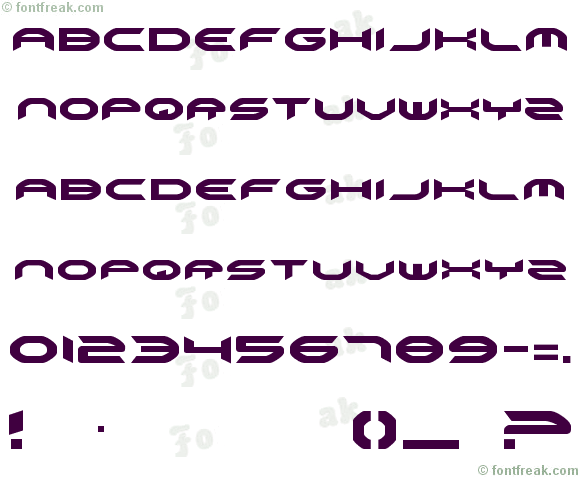
Omni Girl
About Omni Girl - E
Omni Girl - E by Iconian Fonts is a captivating display font that strikes a balance between playfulness and sophistication. This unique typeface, released in 1999, features a distinct decorative style that makes it stand out in the crowded world of typography. Its design showcases a combination of rounded and angular elements, which creates a visually engaging contrast, while the medium stroke weight allows for excellent legibility. The spacing is generous, contributing to an airy and approachable feel, perfect for grabbing attention without overwhelming the viewer.
This font is ideal for various creative projects, making it a versatile choice for graphic designers and content creators alike. Its playful nature lends itself wonderfully to use in children’s book covers, where whimsy and charm are essential. Additionally, Omni Girl - E can enhance restaurant menus, helping to convey a fun and inviting atmosphere. It is also suitable for event flyers, such as birthday parties or community gatherings, bringing a touch of personality to promotional materials. Wedding invitations can benefit from this font's unique style, adding a delightful twist to traditional designs.
Targeting small business owners and graphic designers, Omni Girl - E offers an opportunity to make a memorable impression. The font's engaging aesthetic appeals to those looking to inject creativity into their branding or marketing efforts, ensuring that their message stands out.